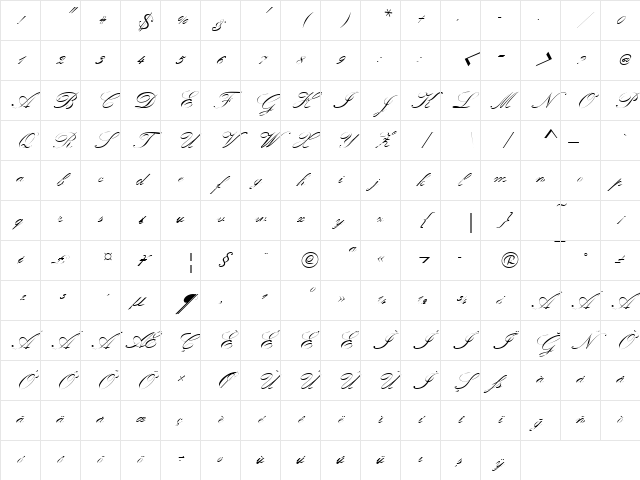
KunstlerschreibschDMed Regular
KunstlerschreibschDMed Family
Design Context for KunstlerschreibschDMed
KunstlerschreibschDMed is a composed and adaptable typeface that performs quietly and consistently across a wide range of design contexts.